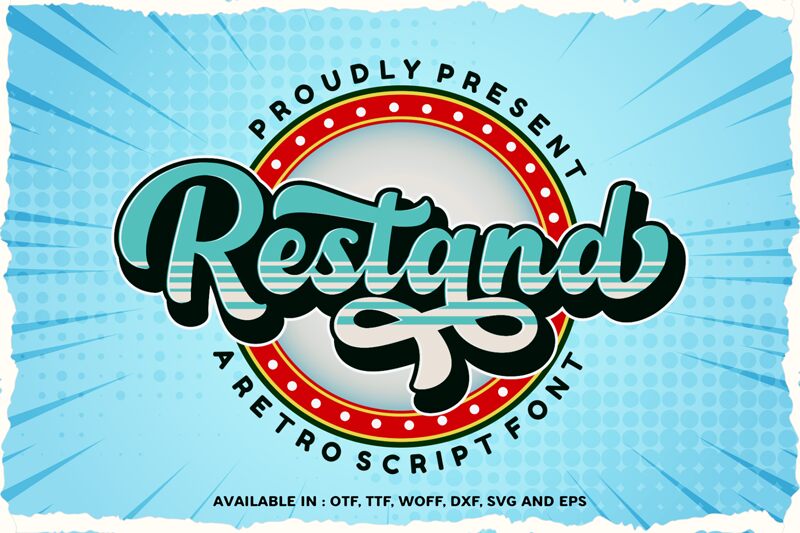
Sronstudio’s Restand font gives a retro brush vibe to any design project. This remarkable free typeface has a lively and smooth appearance that combines old charm with new trends perfectly. Thick lines and flowing arcs are used in it, which brings nostalgia back and makes it ideal for anything that wants an antique touch in its elegance.
It is suitable for branding, posters, logos, or any creative work requiring notice. Download Restand font easily so you can add some personality and eye-catching appeal through its characters to your designs! With this versatile typeface the possibilities are endless; it doesn’t matter what kind of project you’re working on – if there’s ever been such thing as timeless chicness then surely it must be represented by this font